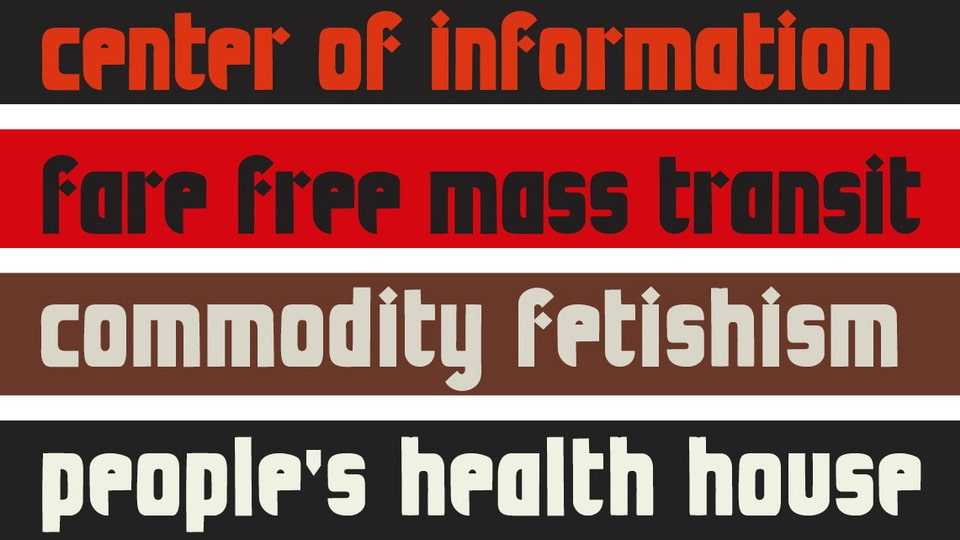
Download Madrid ML font, a typeface adapted from the cover of Mujeres Libres #6, where it looks as if someone took the major characteristics of the the old cover font and modernized it.